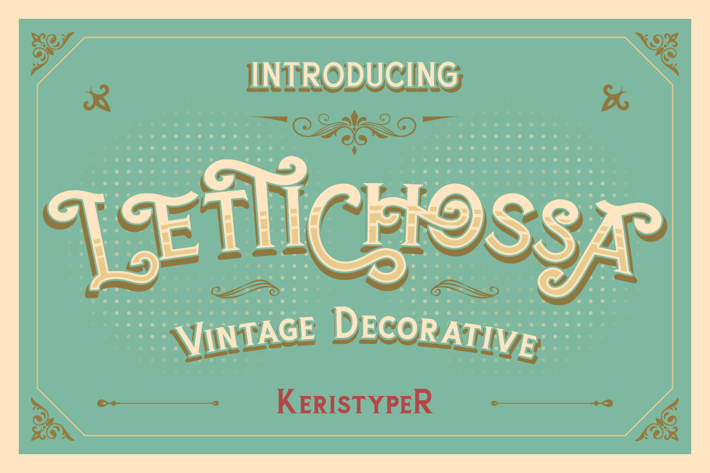
Lettichossa Font
Lettichossa is an old-fashioned typeface, inspired by victorian and ornamental typography styles. This font is good for logo design, Social media, Movie Titles, Books Titles, short text even long text letters, and good for your secondary text font with sans or serif.
Standard Uppercase & Lowercase
Multilingual : ä ö ü Ä Ö Ü ß ¿ ¡
Alternate & Ligature